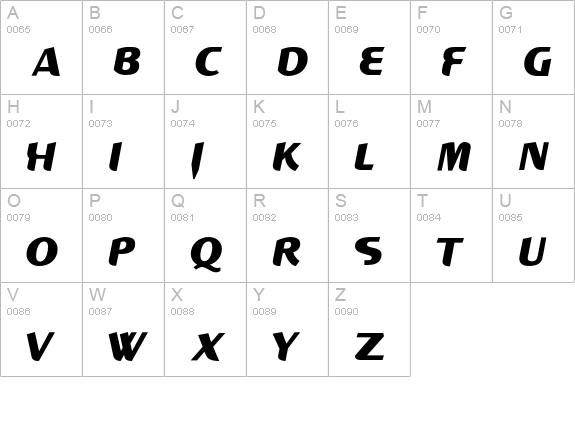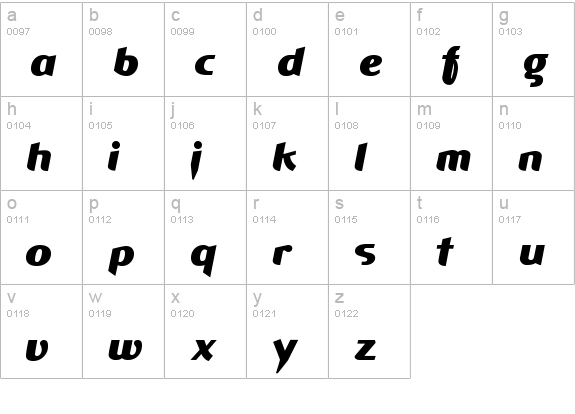
XYPERFORMULAIC-11RB Font Details
XYPERFORMULAIC-11RB is a modern and sleek font that exudes elegance and sophistication. With its clean lines and sharp angles, this font is perfect for creating a professional and polished look in any design project. Whether you're working on a business presentation, a magazine layout, or a website, XYPERFORMULAIC-11RB will add a touch of class to your work. The best part is that XYPERFORMULAIC-11RB is completely free to download at FontsMarket.com. This means you can use this stunning font in your projects without having to worry about any extra costs. So why wait? Add XYPERFORMULAIC-11RB to your font collection today and take your designs to the next level.